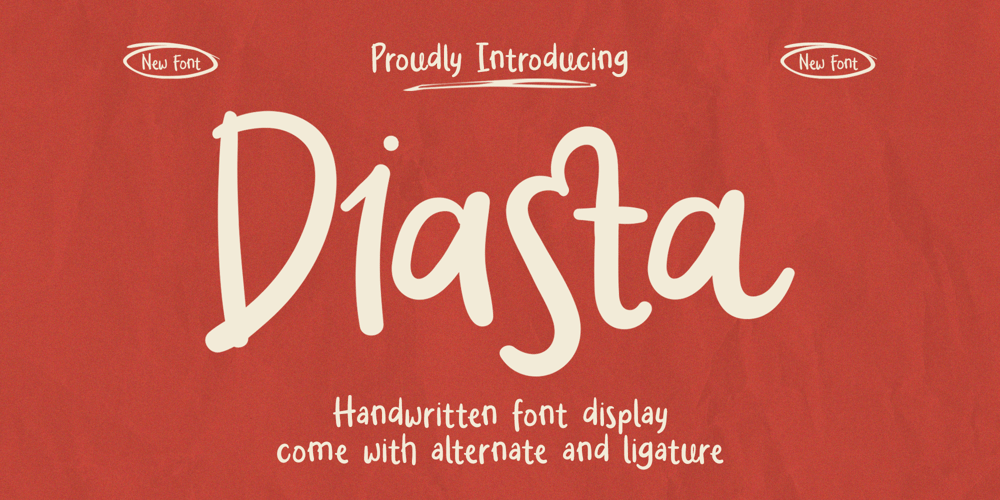
Diasta Handwritten Font Display Font Family was designed by Virgiawan Listanto and published by Inviline. Diasta Handwritten Font Display contains 1 styles and family package options. Breezy handwritten font display, infused with character and charm. Ideal for branding, invitations, and social media, this versatile typeface enhances your projects with a personal touch, making any design feel warm and inviting. Perfect for creatives!